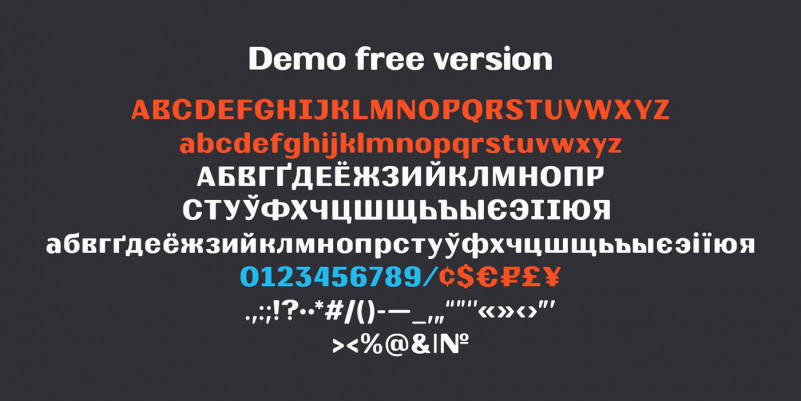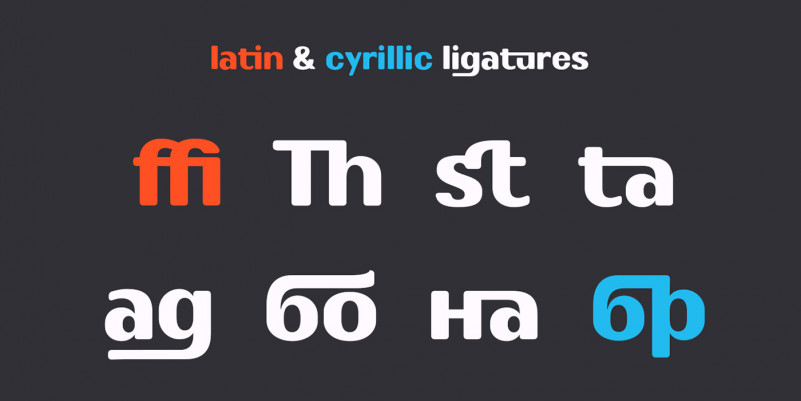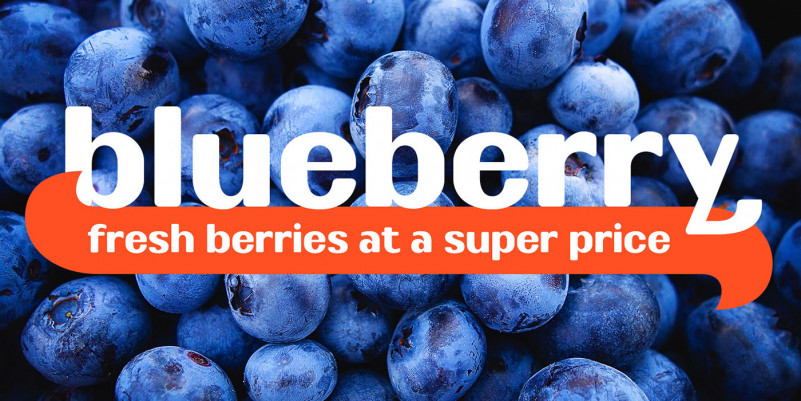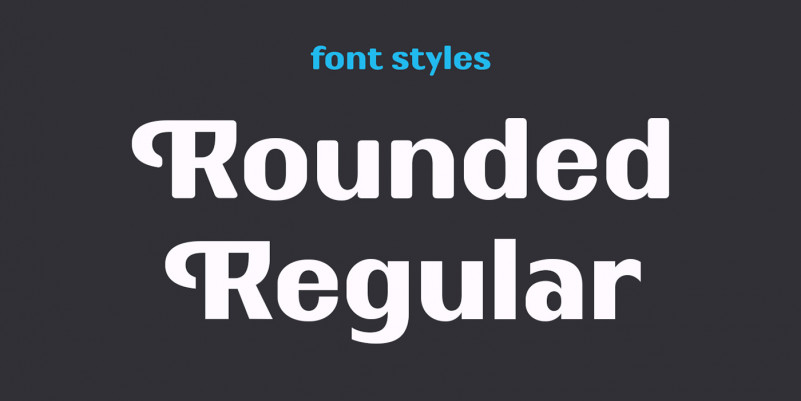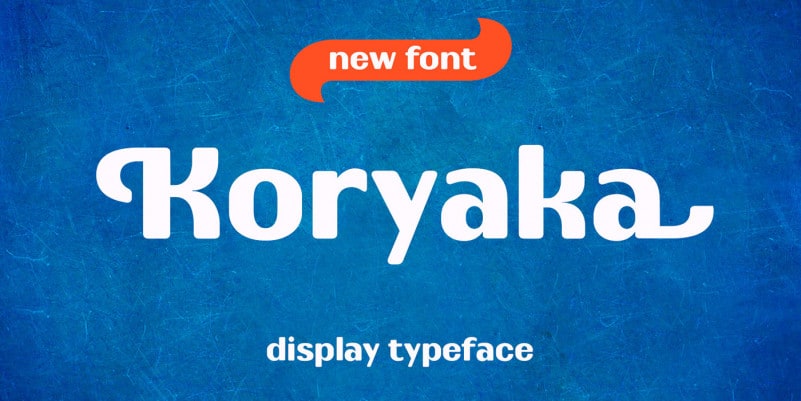
Koryaka Typeface
Hello Guys! This is a new bold and rounded sans serif font. This font was designed to be a perfect typeface for text and display purposes. Introducing Koryaka Typeface. Koryaka Font is display typeface with high contrast and Russian character. The font was created in 2019, in the TypeType Education font course. You can use this font for every project. Suitable for branding logo, hand lettering, or for branding.